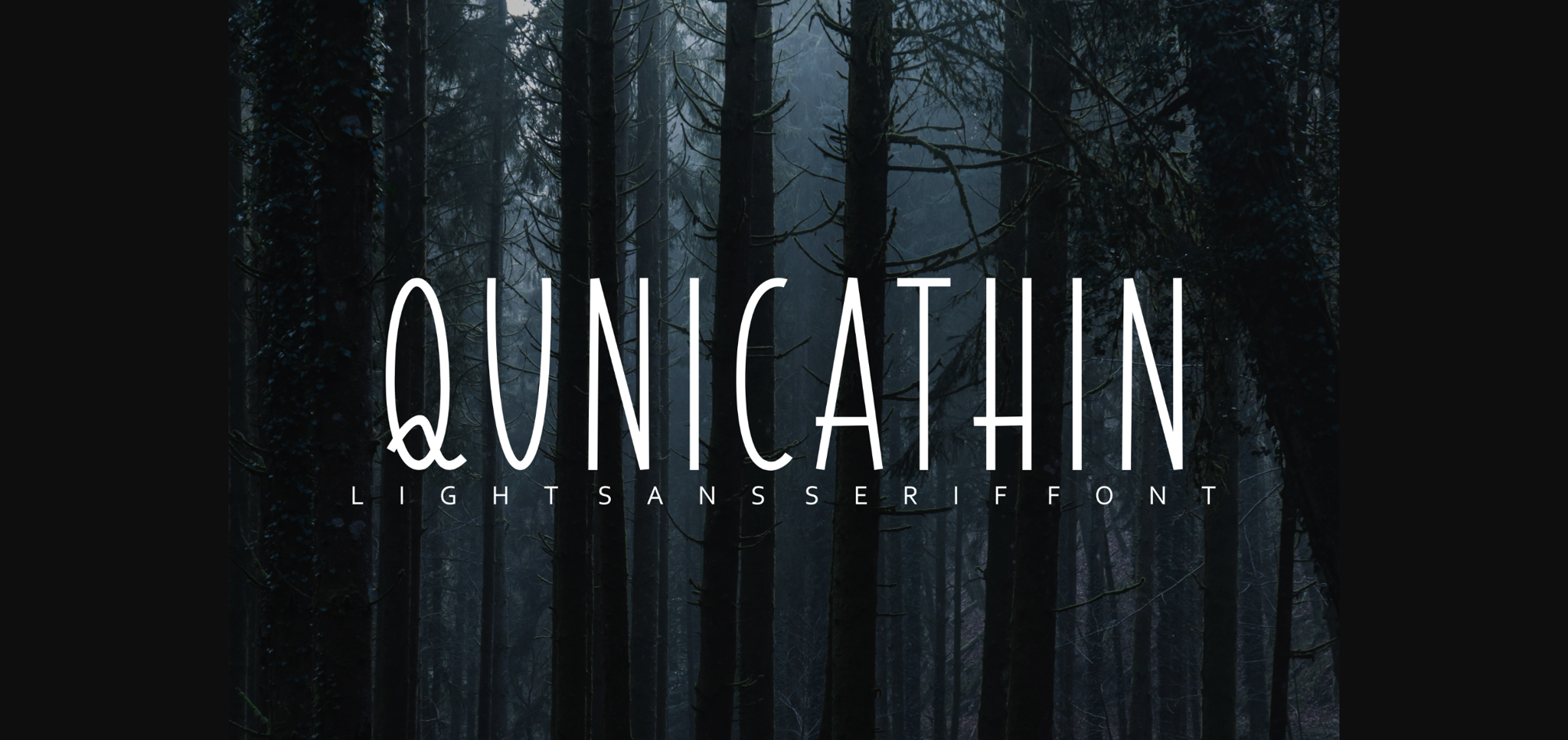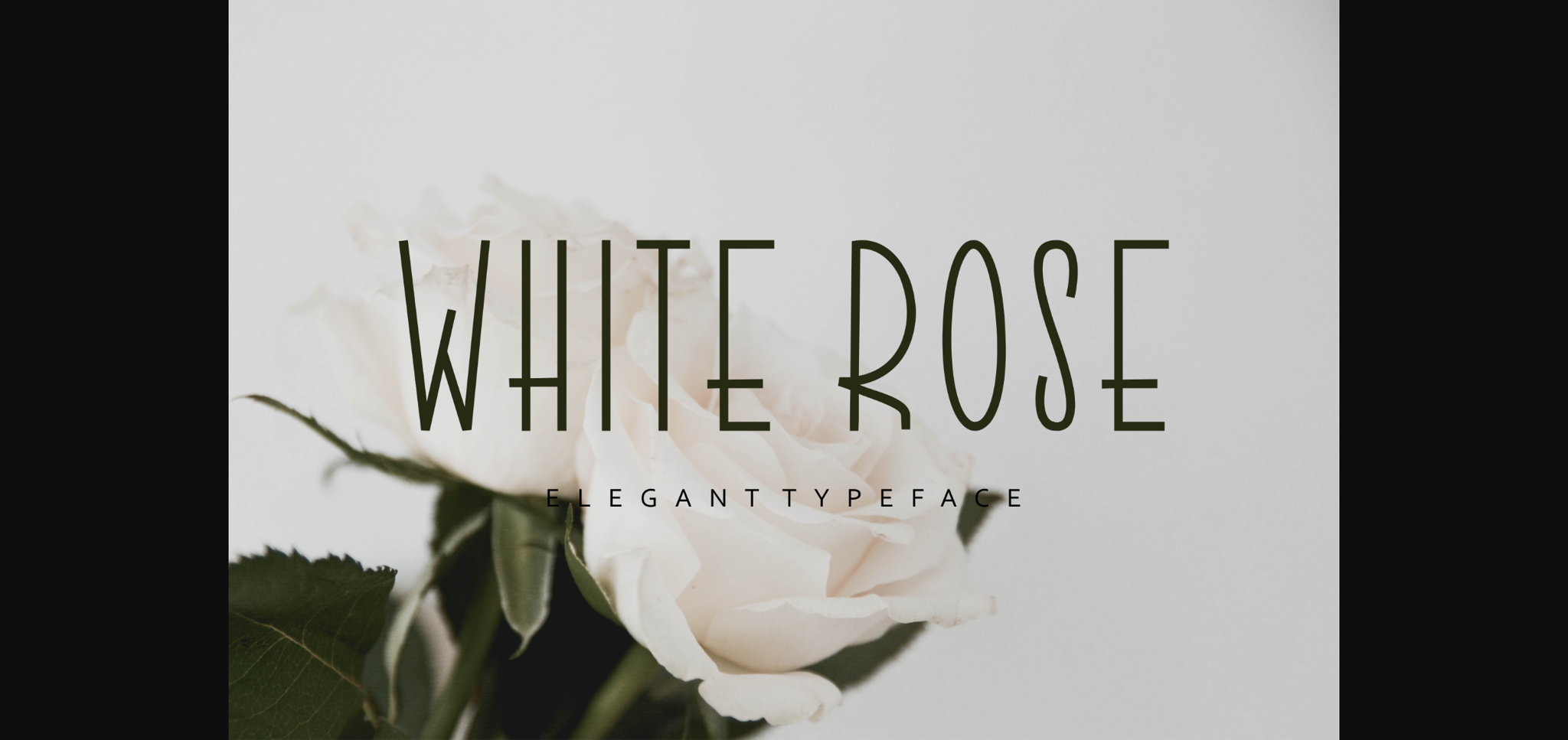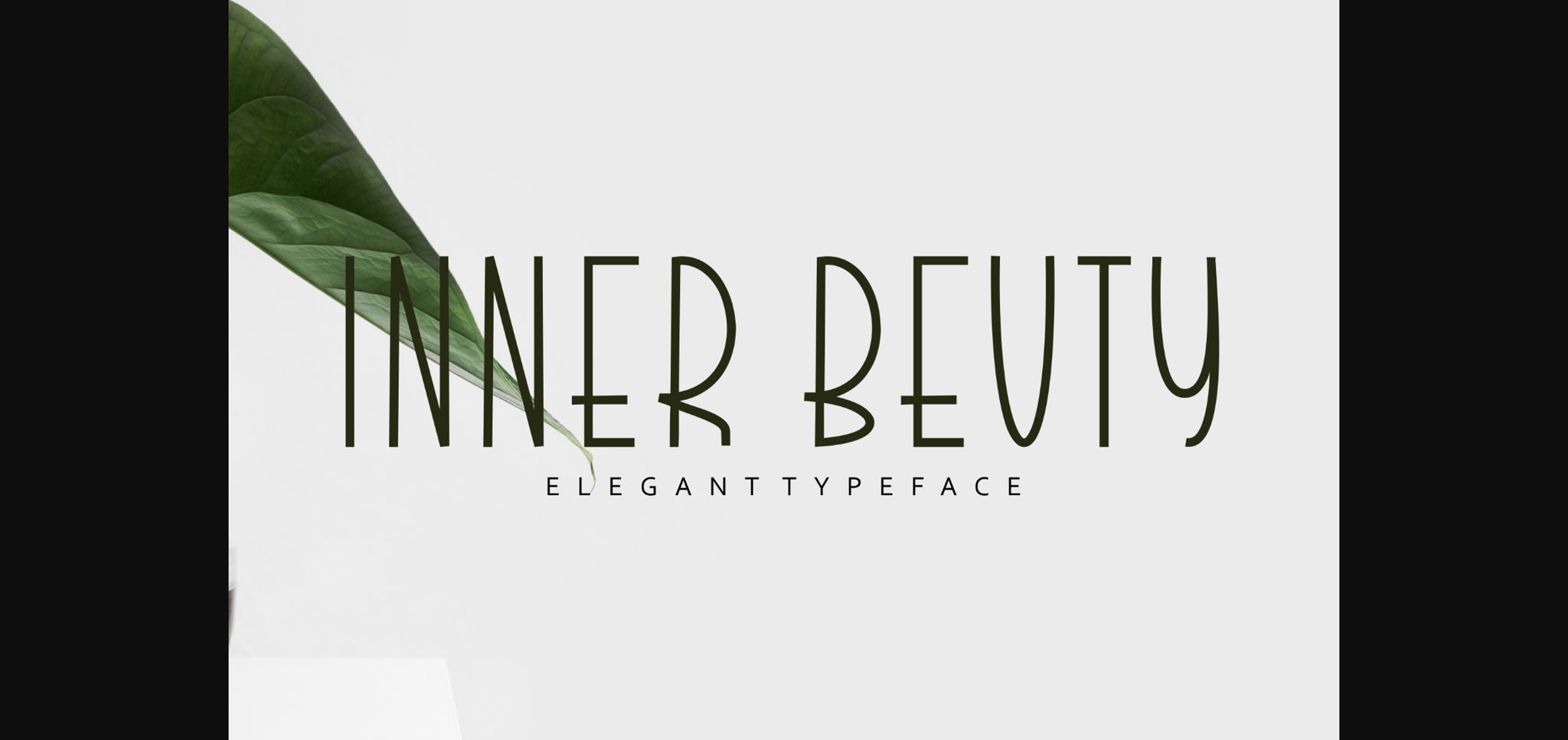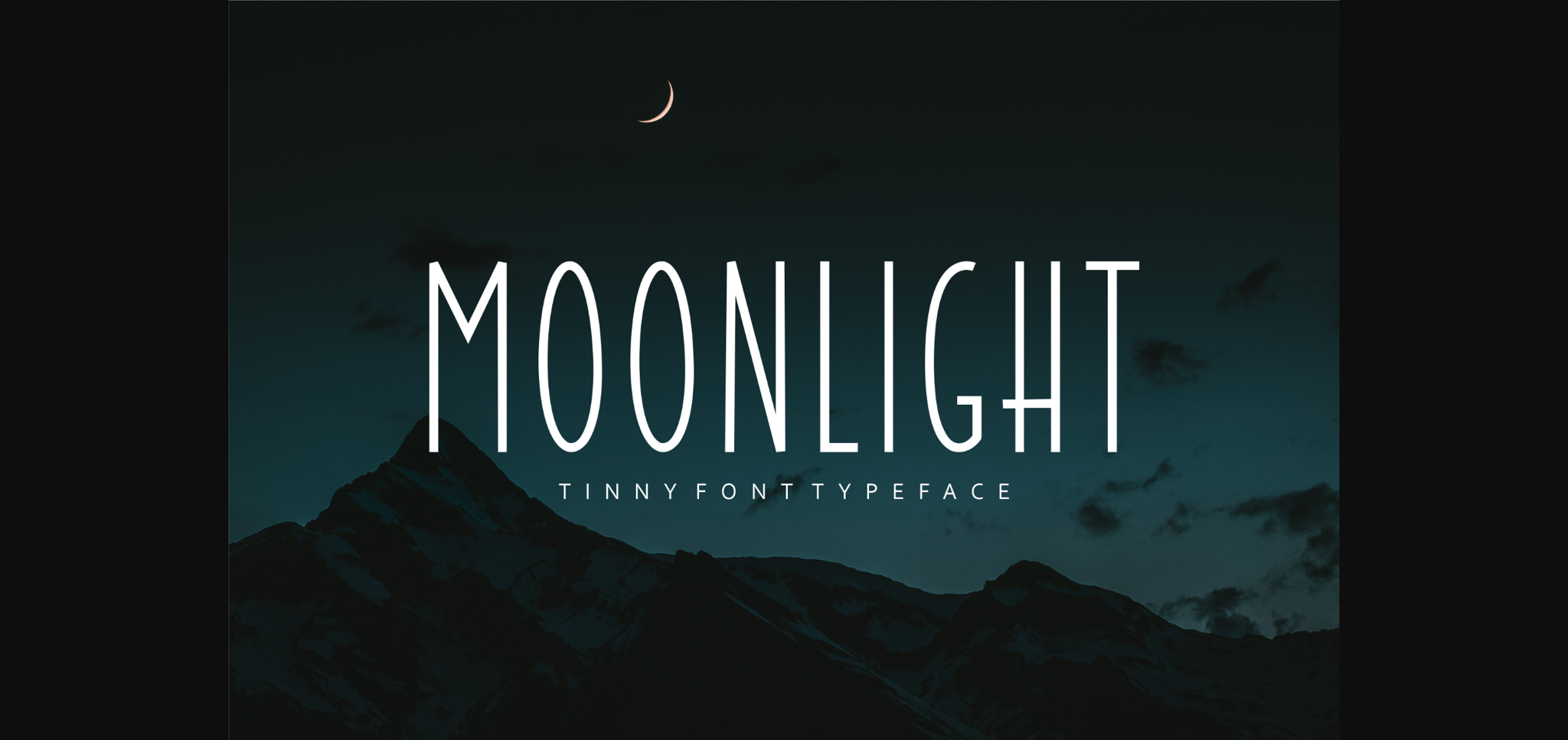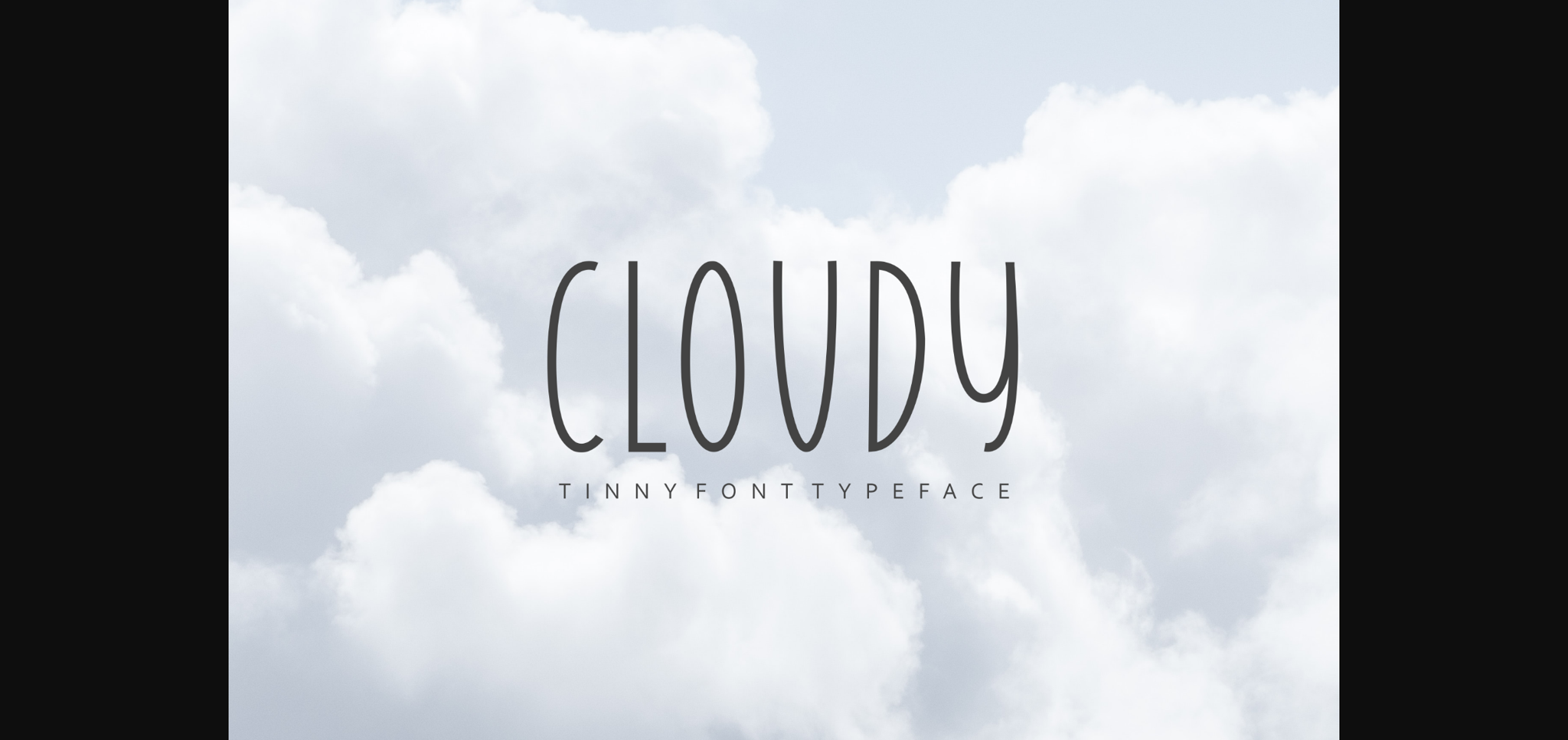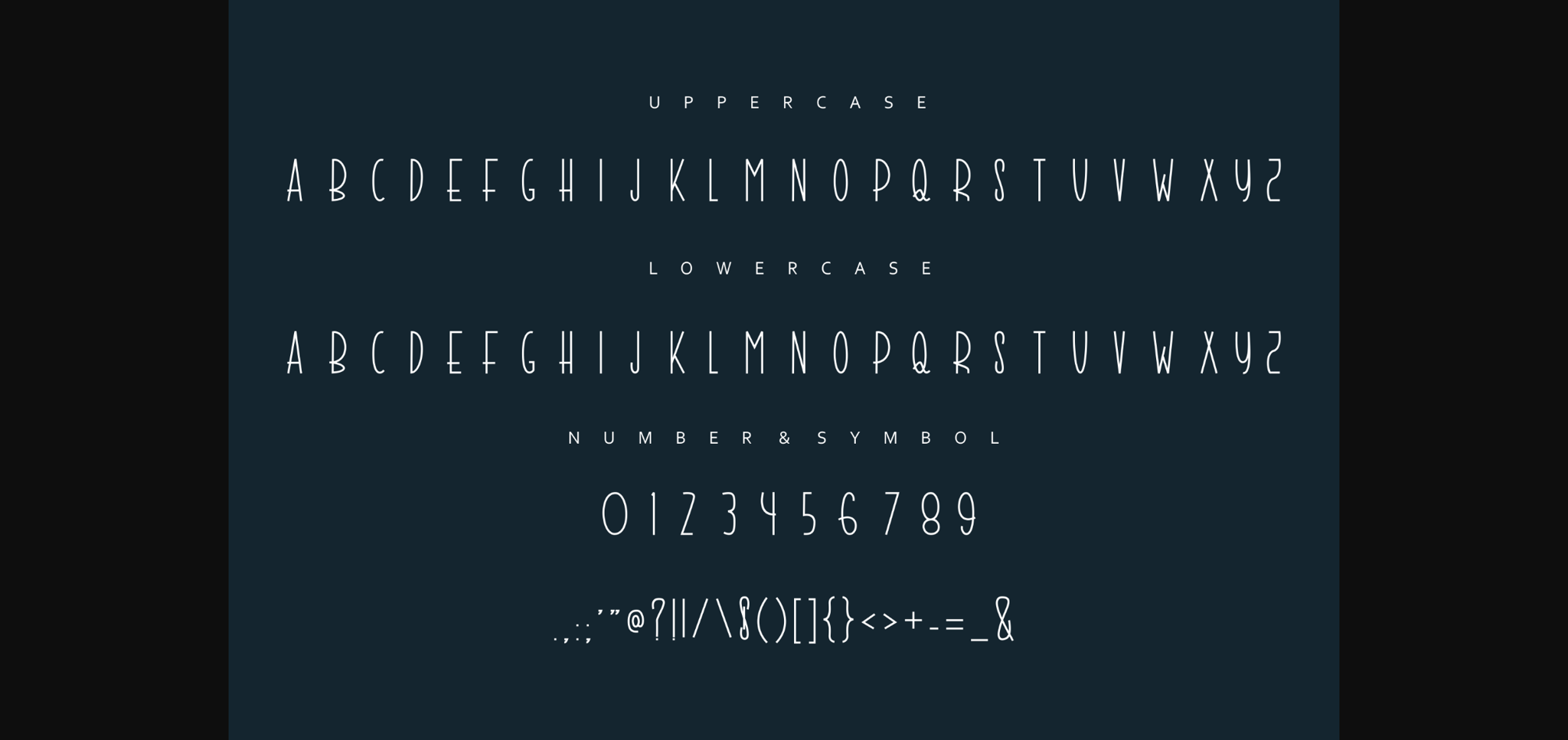
Qunicathin Font
About Qunicathin Font
Qunicathin is an elegant serif font, that features a very delicate and classy look. Not too thin and not too thick, balanced and varied, QUincathin was designed to enhance the beauty of your projects.